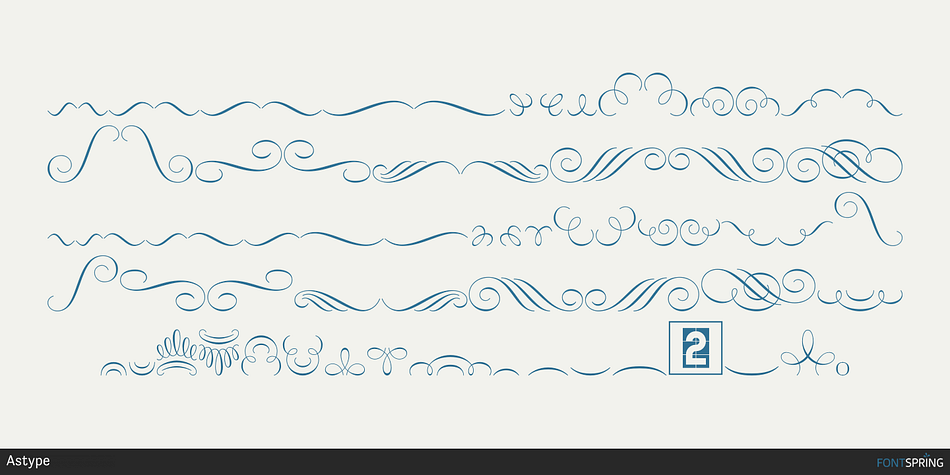
Astype Ornaments Accolades A2
Designed by Andreas Seidel, Astype Ornaments Accolades A is a dingbat font family. This typeface has two styles and was published by Astype.
The Astype Ornament Series Accolades A offers the designer a fine balanced set of calligraphic swashes, swirls and floral ornaments. The shapes are in systematic order and harmonize in contrast and detail. The shapes can be combined easily and the advanced designer can build lots of sophisticated compositions.
Accolades A and A2 share the same base set of ornaments but differ in some of the major shapes. Despite these differences, the total width of the shapes will be always the same.